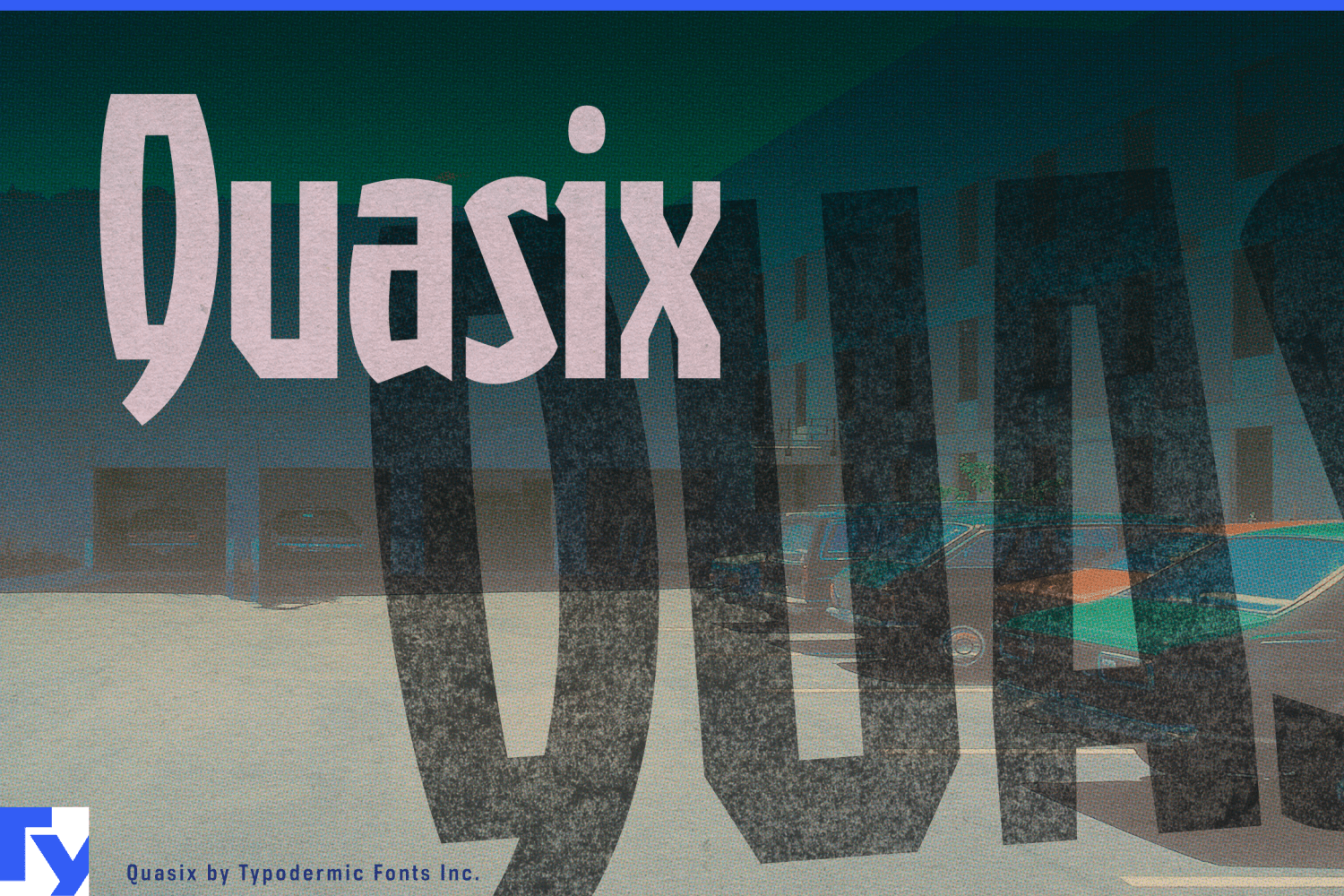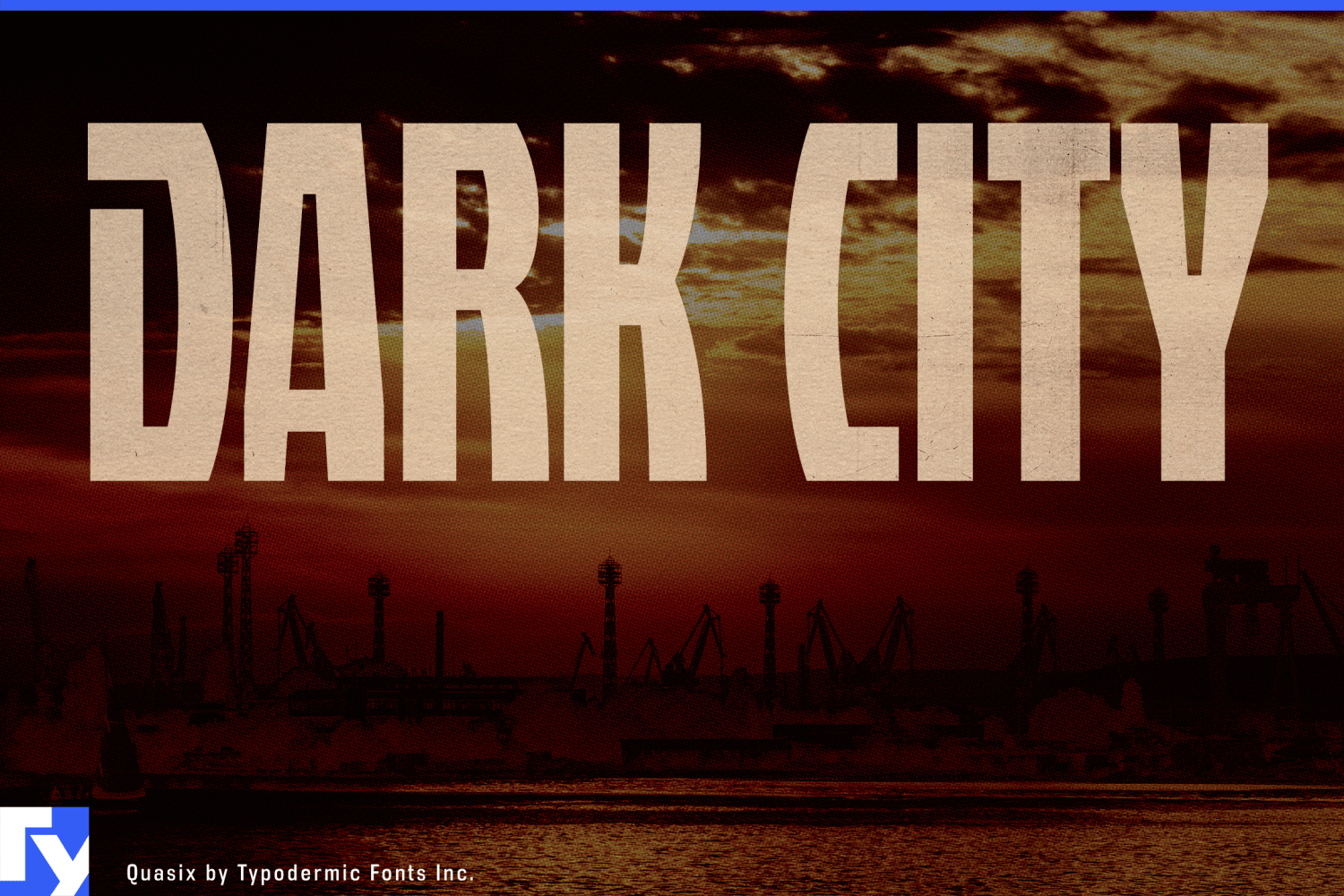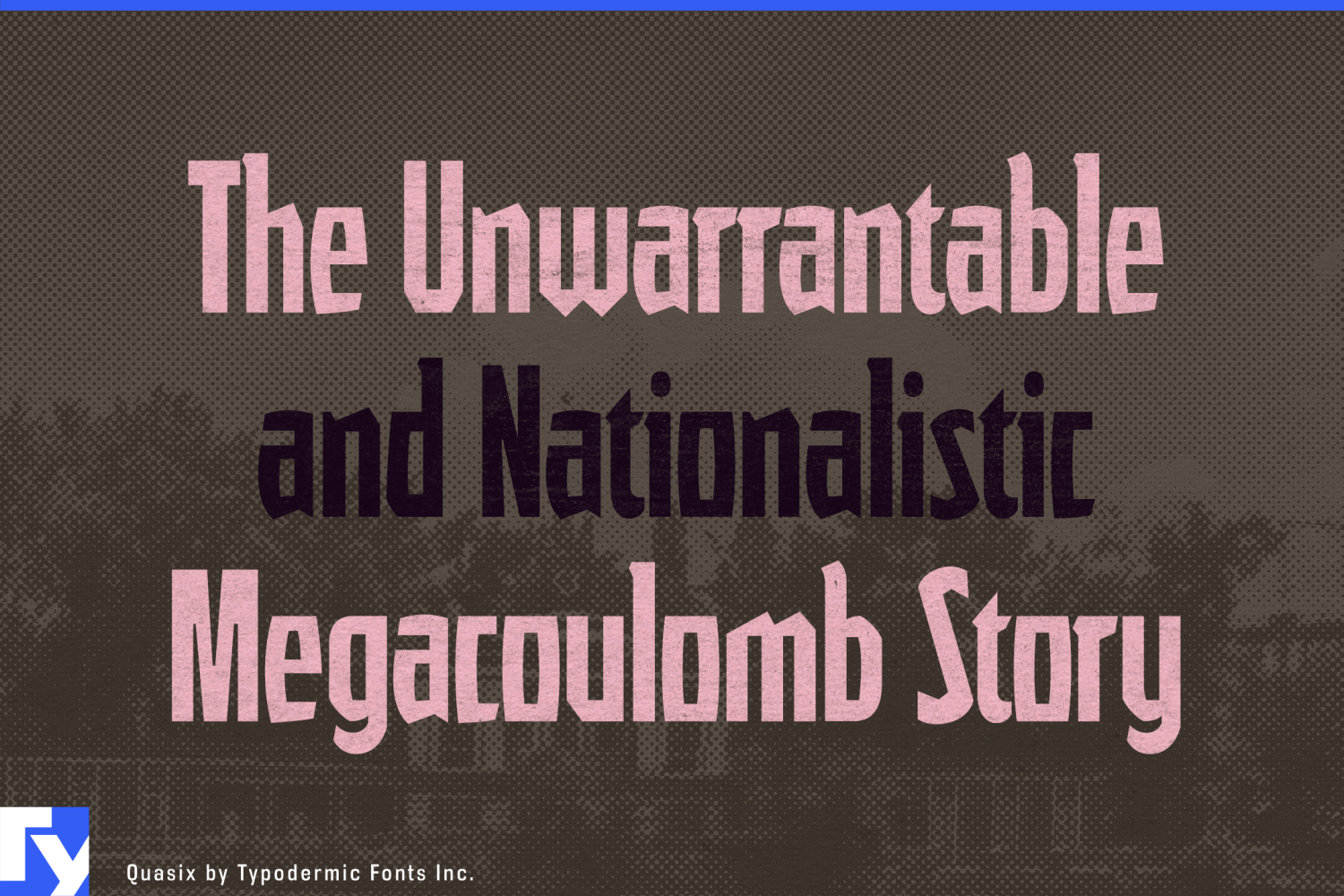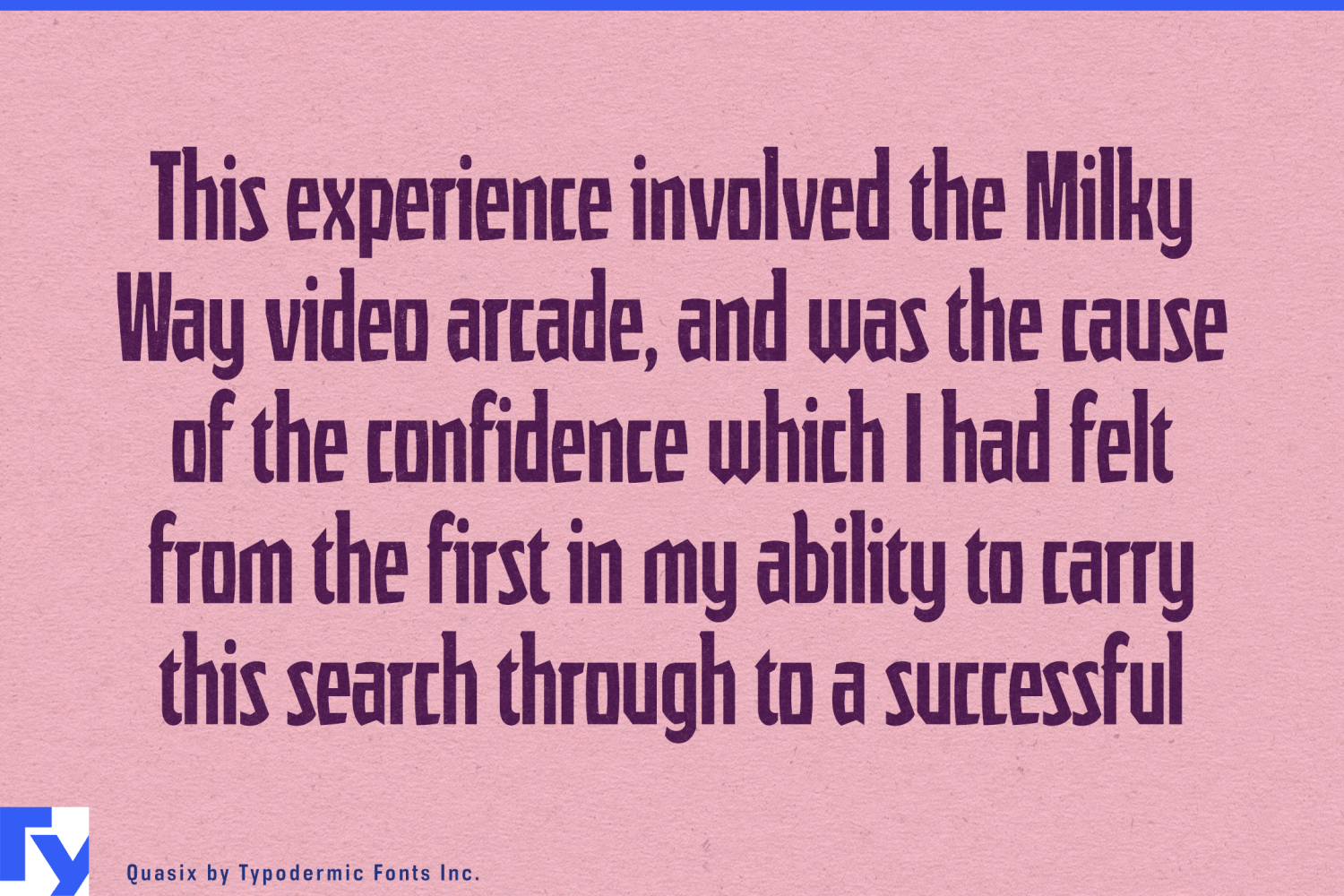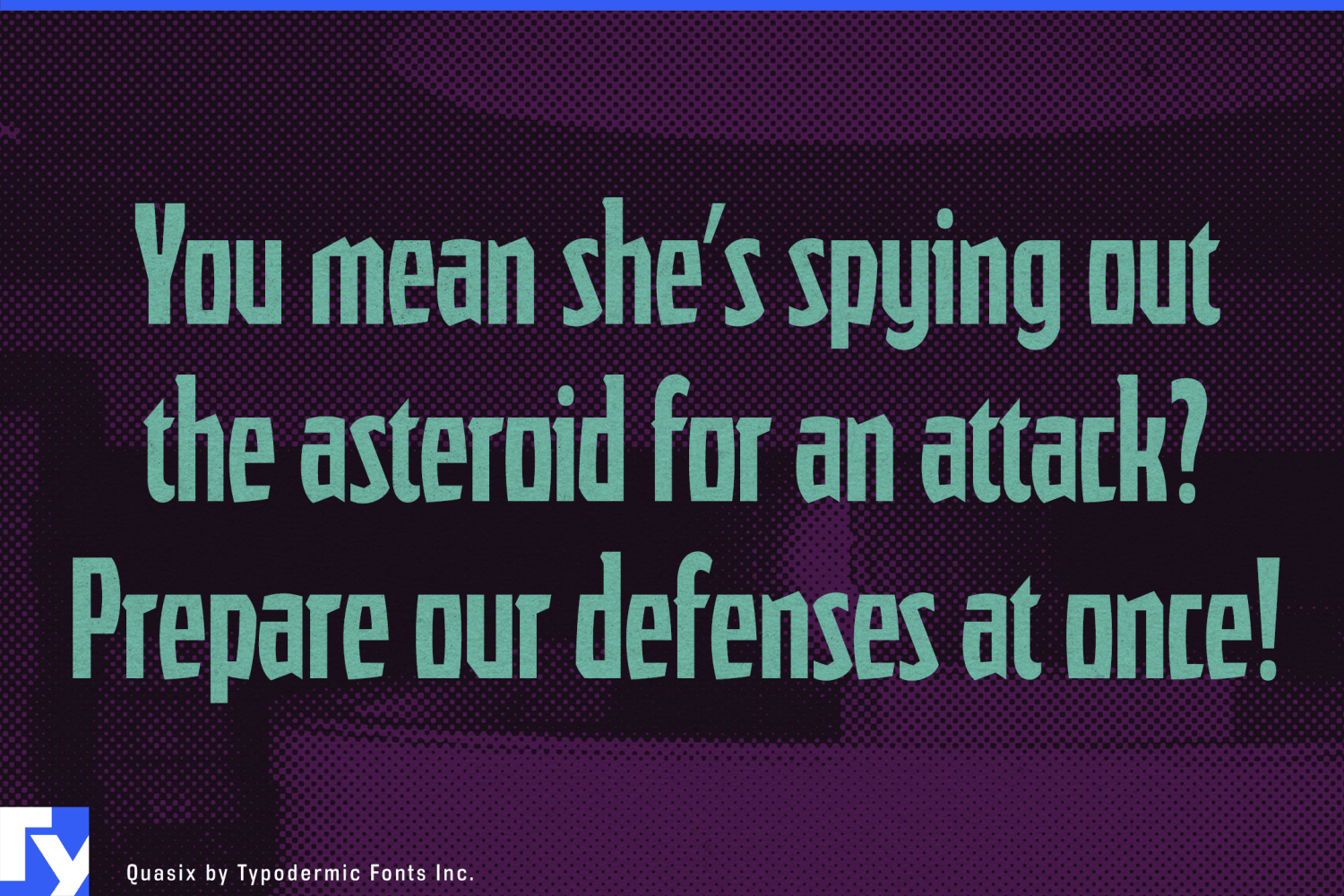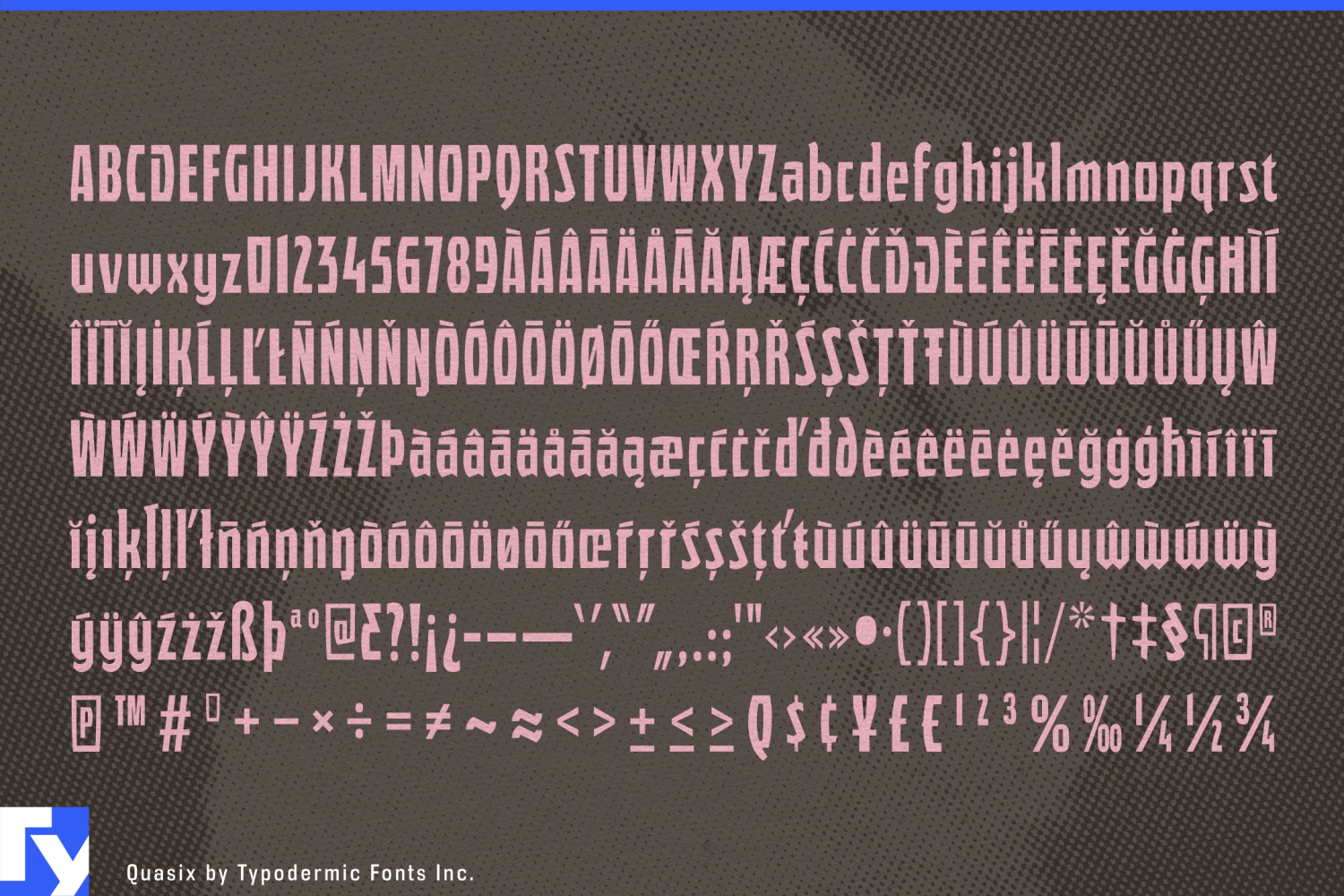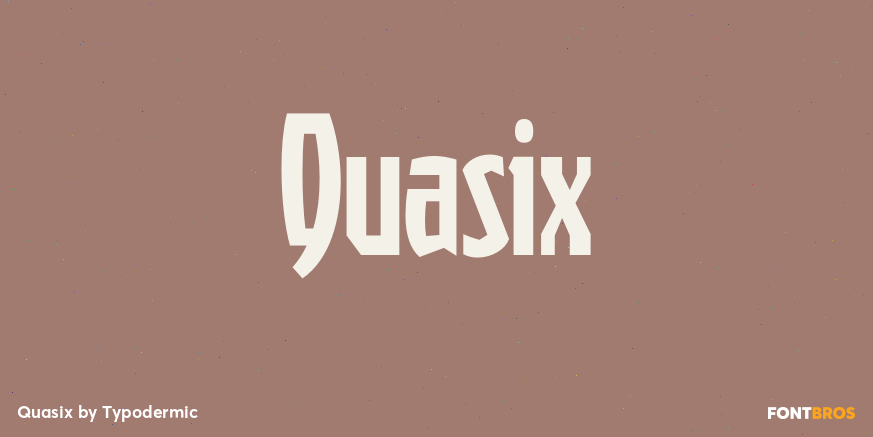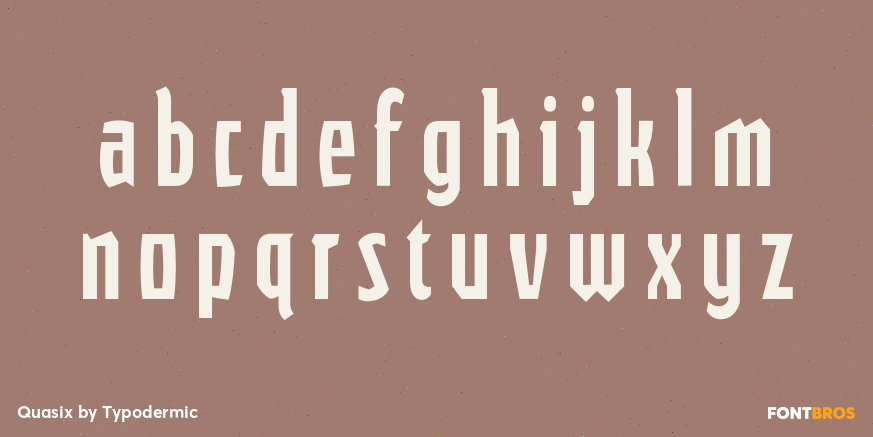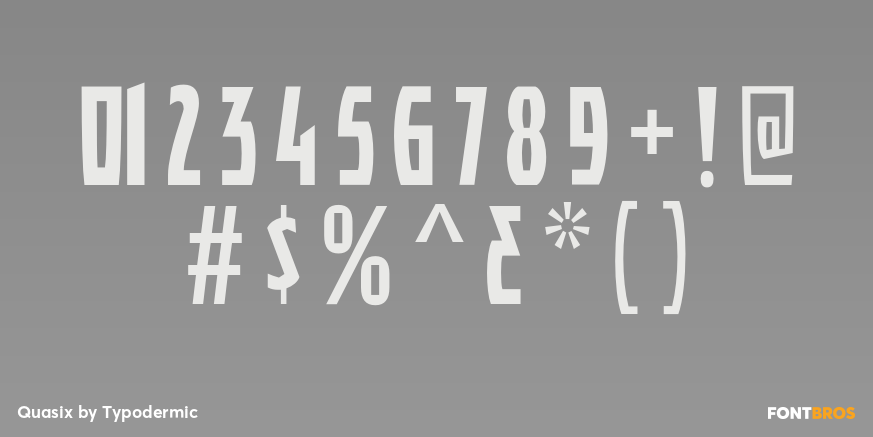
Quasix
Font Family by Typodermic
Quasix finds beauty in machinery that was never expected to be seen. Its indirect inspiration came from the inside of a VCR: an intricate assembly of stamped brackets, moulded gears, springs, guides, levers, and oddly shaped components. Each part was designed to perform a specific task, fit around its neighbours, satisfy manufacturing constraints, and keep the tape moving. The mechanism is beautiful because it works.
The same principle governs Quasix. Its condensed letterforms appear to have been assembled from locally optimized solutions rather than derived from one elegant geometric recipe. A joint bends because that letter requires it; a bowl meets its stem at an awkward angle; a diagonal is clipped, braced, or redirected according to the available space. Individual decisions seem incompatible, but their recurring economy gives the alphabet its cohesion. The disharmony is systematic.
Quasix resembles typographic kitbashing. Model builders create convincing machines by combining vents, housings, panels, and structural fragments taken from unrelated kits. The original purpose of each component disappears, but the accumulation of functional-looking parts makes the completed object plausible. Quasix similarly suggests that every peculiar joint has a purpose, even when that purpose remains inaccessible to the viewer.
This makes Quasix useful for subjects involving repair, fabrication, and the hidden lives of ordinary machines: electronics teardown videos, right-to-repair campaigns, consumer-technology exhibitions, e-waste programmes, hardware kits, robot competitions, fabrication workshops, experimental instruments, and publications about industrial design. Its eccentric construction can support model numbers, equipment labels, section headings, and event graphics without resorting to literal gears or circuit traces.
The kitbashed quality also gives fictional machinery a credible visual culture. Quasix suits patched spacecraft, salvage-built robots, improvised transmitters, eccentric vehicles, and obsolete equipment kept alive with incompatible parts. It can shape machine classifications, vehicle names, equipment decals, model-kit boxes, tabletop campaign titles, and chapter headings in illustrated science fiction.
Beyond engineering, Quasix’s compressed proportions and unsettled rhythm suit post-punk flyers, noise-rock releases, experimental dance nights, fringe theatre, surreal animation, and found-object sculpture exhibitions. Its lowercase allows that peculiar logic to accumulate across names, headlines, labels, and short blocks of text; longer phrases gradually reveal that the inconsistencies are following rules after all.
Every part looks questionable in isolation. Together, they make the machine run.